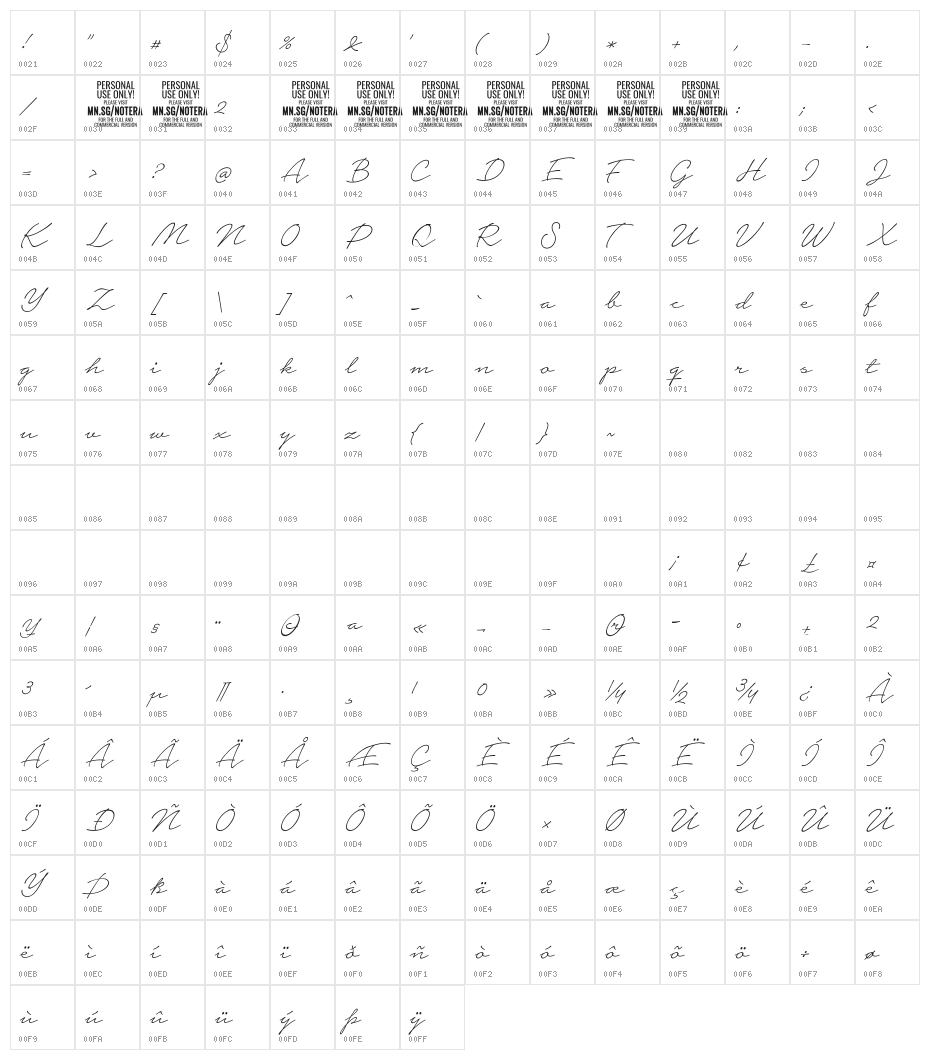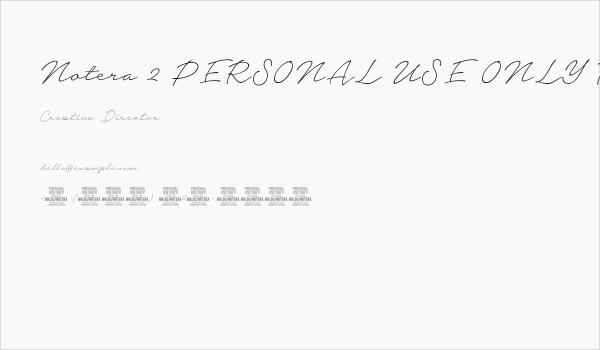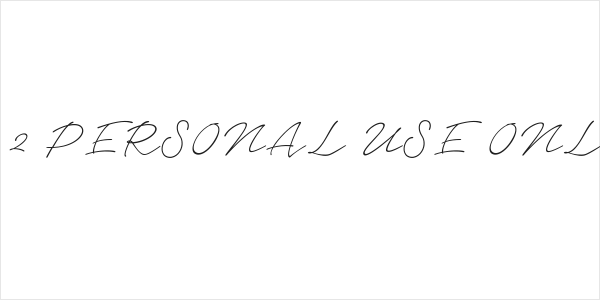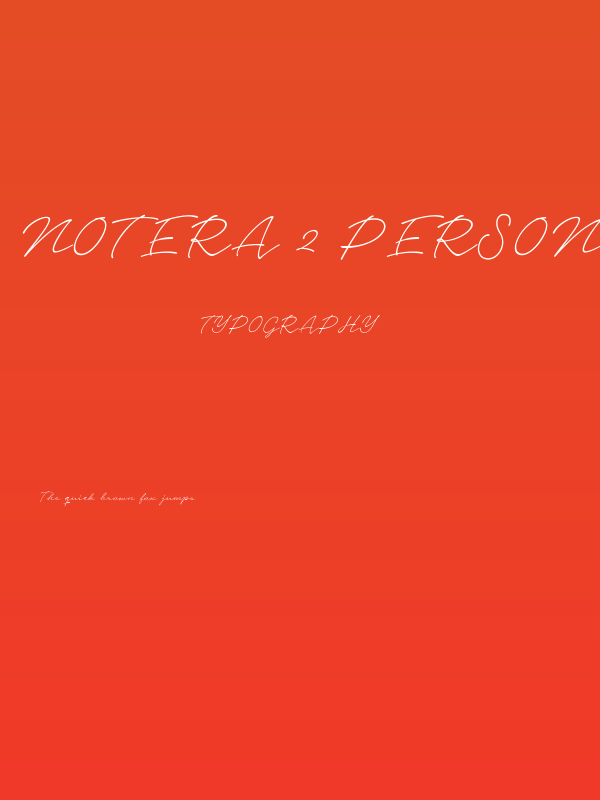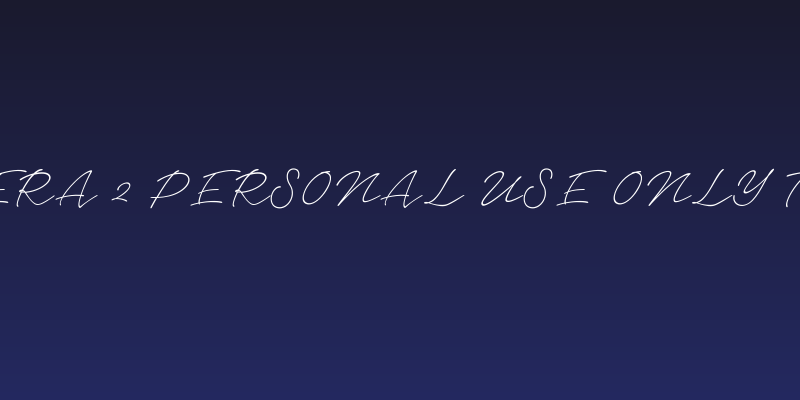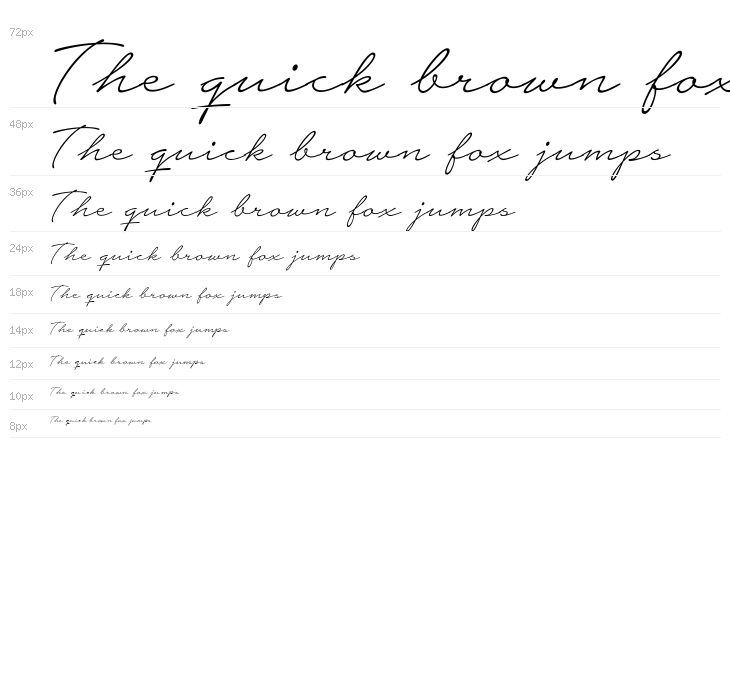
Notera 2 PERSONAL USE ONLY Thin Font
Notera 2 PERSONAL USE ONLY Thin Description
This font features an elegant, flowing script style that mimics natural handwriting. The characters are connected, creating a seamless and fluid appearance. The strokes are thin and delicate, with a consistent line weight that adds to its graceful aesthetic. This font exudes a sense of sophistication and charm, making it ideal for projects that require a personal touch. The uppercase and lowercase letters are well-proportioned, and the special characters maintain the same elegant style, ensuring a cohesive look across all text elements.
| Proposed Projects | Ideal for wedding invitations, personal branding, greeting cards, and elegant stationery. |